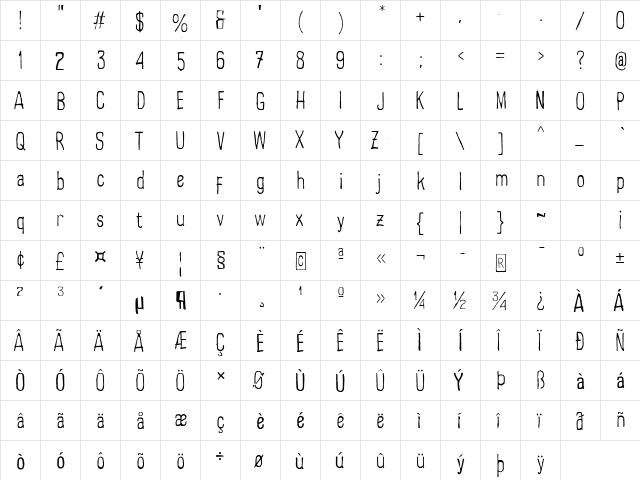
Holiday with Me Regular
| Foundry | Muhadi |
| Designer | Muhadi |
Design Context for Holiday with Me Typeface
Holiday with Me offers clean, dependable letterforms without strong stylistic allegiance, making it a practical choice for designers who need flexibility.